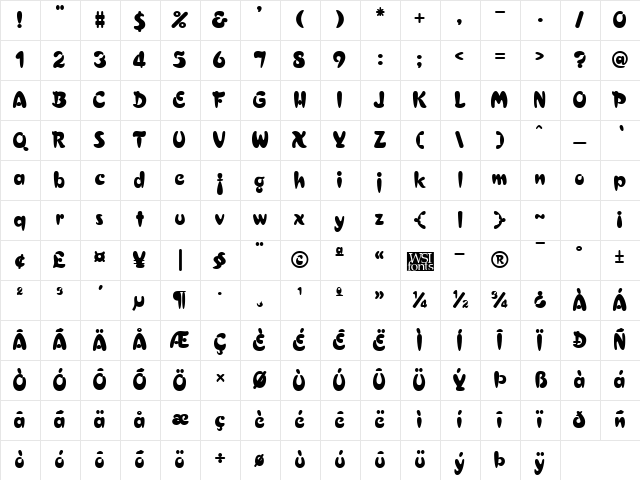
Cressida Regular
Design Context for Cressida
Cressida is a composed and adaptable typeface that performs quietly and consistently across a wide range of design contexts.